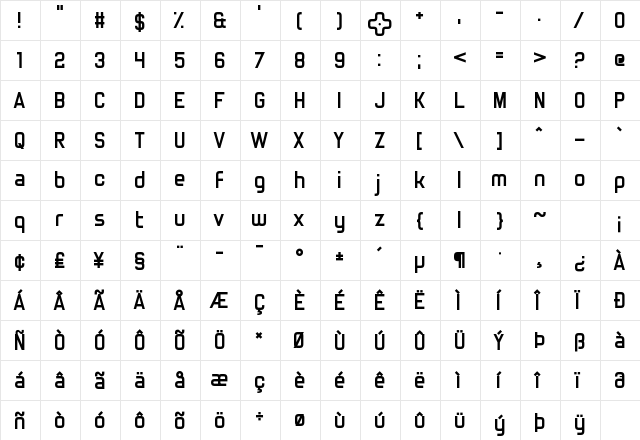
Truly Madly Dpad Regular
| Designer | NAL |
Design Context for Truly Madly Dpad Typeface
Truly Madly Dpad is a composed and adaptable typeface that performs quietly and consistently across a wide range of design contexts.